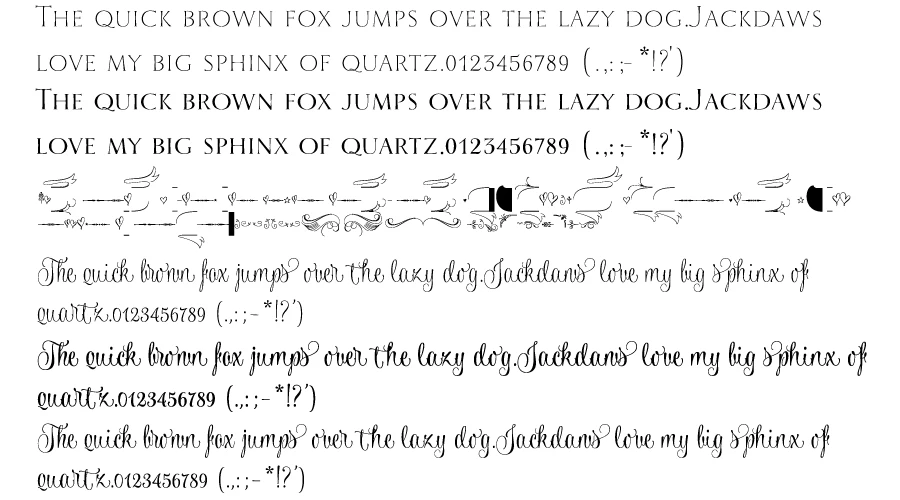
Wishes Script is a calligraphy font by Sabrina Mariela Lopez, published through Typesenses. People use it for wedding invitations, greeting cards and handwritten-style logos. It comes in 18 styles, and the download and license details are below.
About the Wishes Script font
Wishes Script is a script face, so its letters have a handwritten, calligraphic look. It works best at large sizes and in short lines of text.
The family includes more than 990 glyphs and a set of 197 ornaments. It supports up to 14 OpenType features, so you can use alternate letters and swashes when you want a more custom look.
Designers often pick Wishes Script for invitations, cards, posters, packaging and YouTube thumbnails. It also suits calligraphy-style logos. Keep the text short, because thin script strokes get hard to read in long paragraphs.
Name Wishes Script Font.
Style Calligraphy, Script
Author Sabrina Mariela Lopez.
Font Family
• Wishes Script Pro Text Light.
• Wishes Script Pro Text Regular.
• Wishes Script Pro Text Bold.
• Wishes Script Caps Text Light.
• Wishes Script Caps Text Regular.
• Wishes Script Caps Text Bold.
• Wishes Script Pro Display Light.
• Wishes Script Pro Display Regular.
• Wishes Script Pro Display Bold.
• Wishes Script Caps Display Light.
• Wishes Script Caps Display Regular.
• Wishes Script Caps Display Bold.
• Wishes Script Ornaments Text Light.
• Wishes Script Ornaments Text Regular.
• Wishes Script Ornaments Text Bold.
• Wishes Script Ornaments Display Light.
• Wishes Script Ornaments Display Regular.
• Wishes Script Ornaments Display Bold.
Short phrases look best in this script. Try a name, a date or one word at a large size. Check how the text looks on a phone before you publish a thumbnail or invitation.
What type of font is Wishes Script?
Wishes Script is a calligraphy typeface family by Sabrina Mariela Lopez. It has 18 styles across text, display, caps and ornament versions.